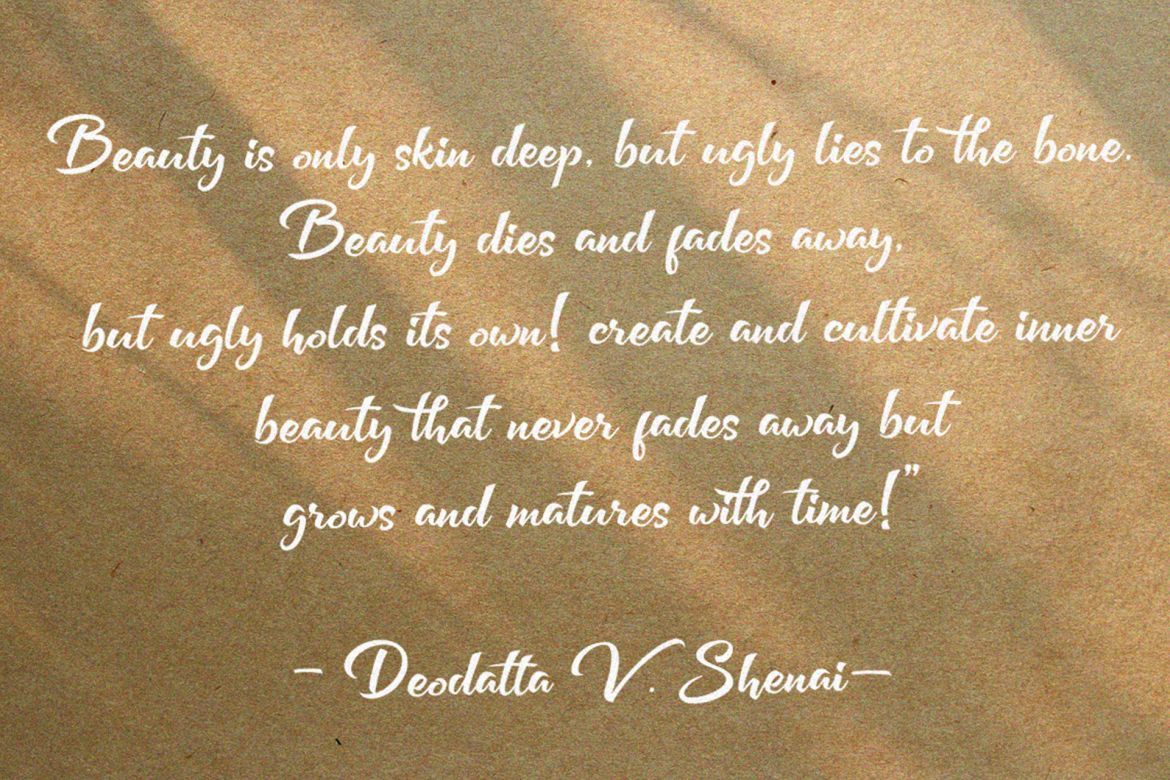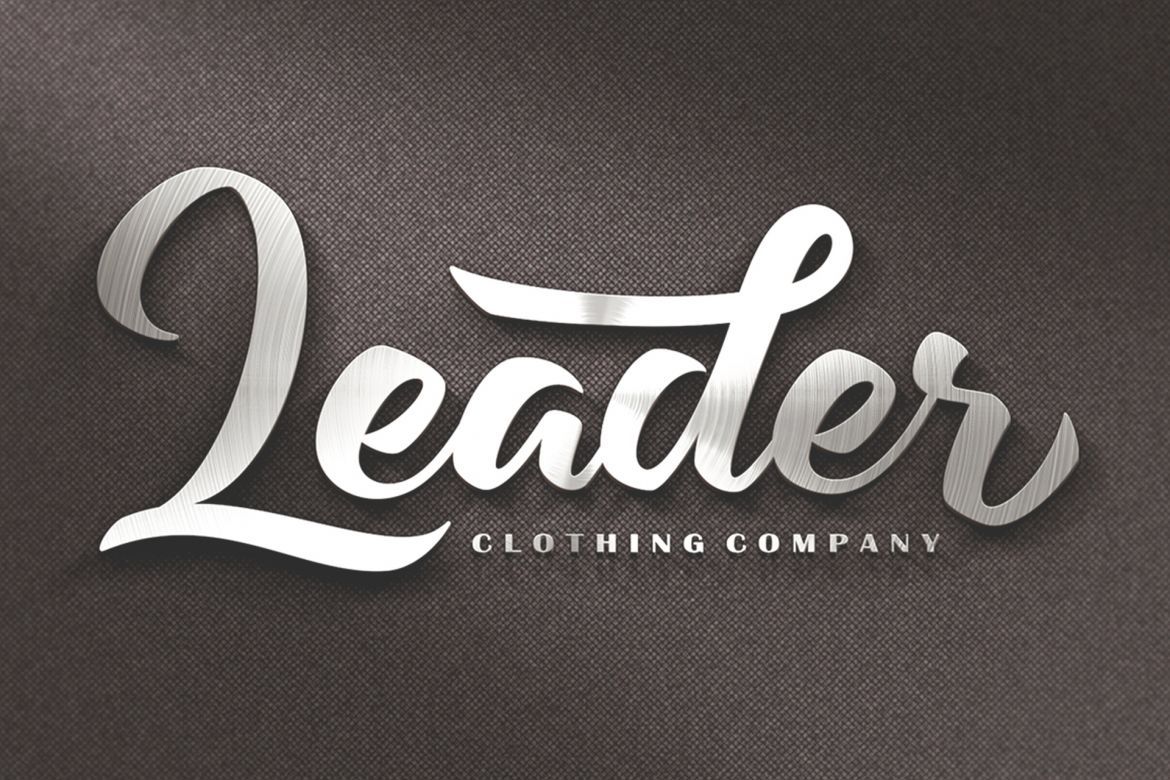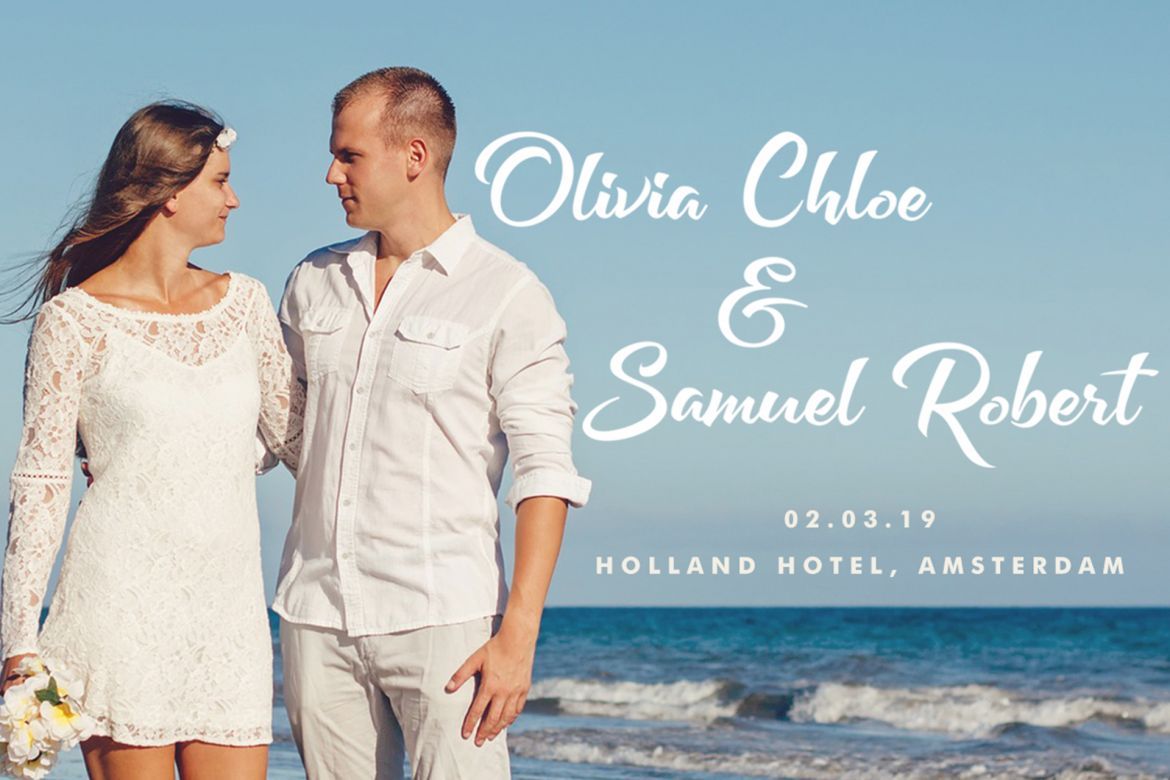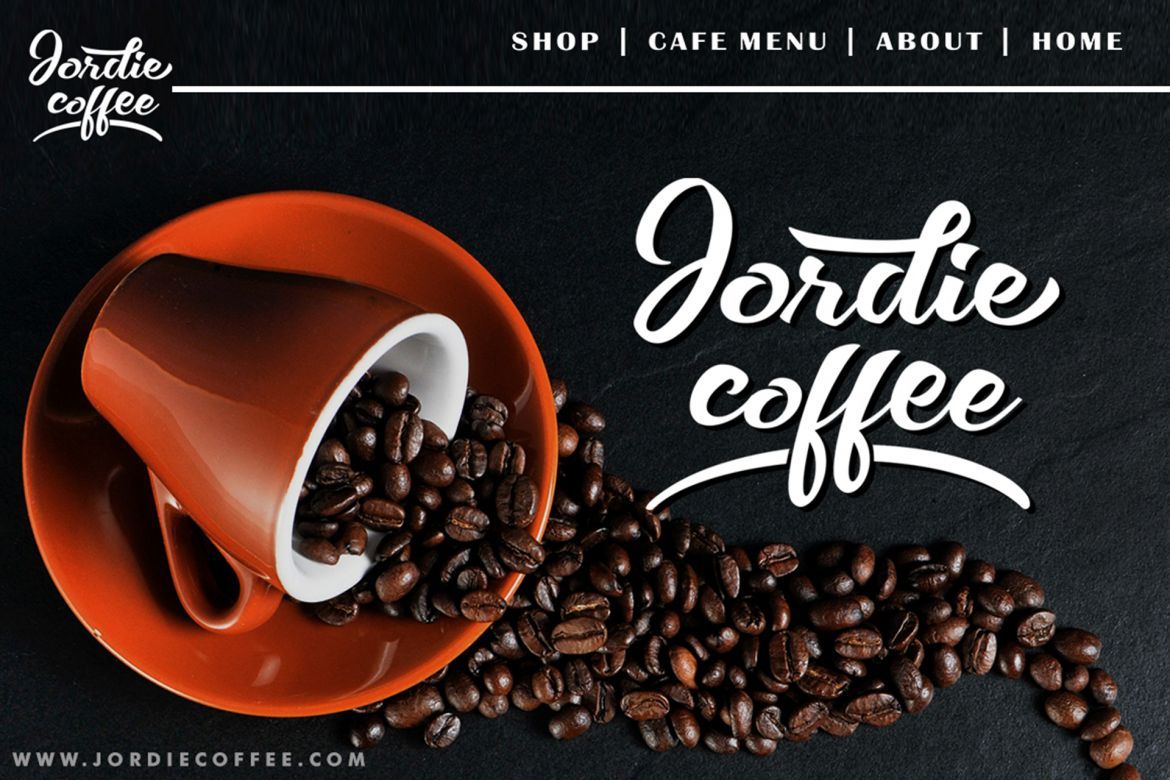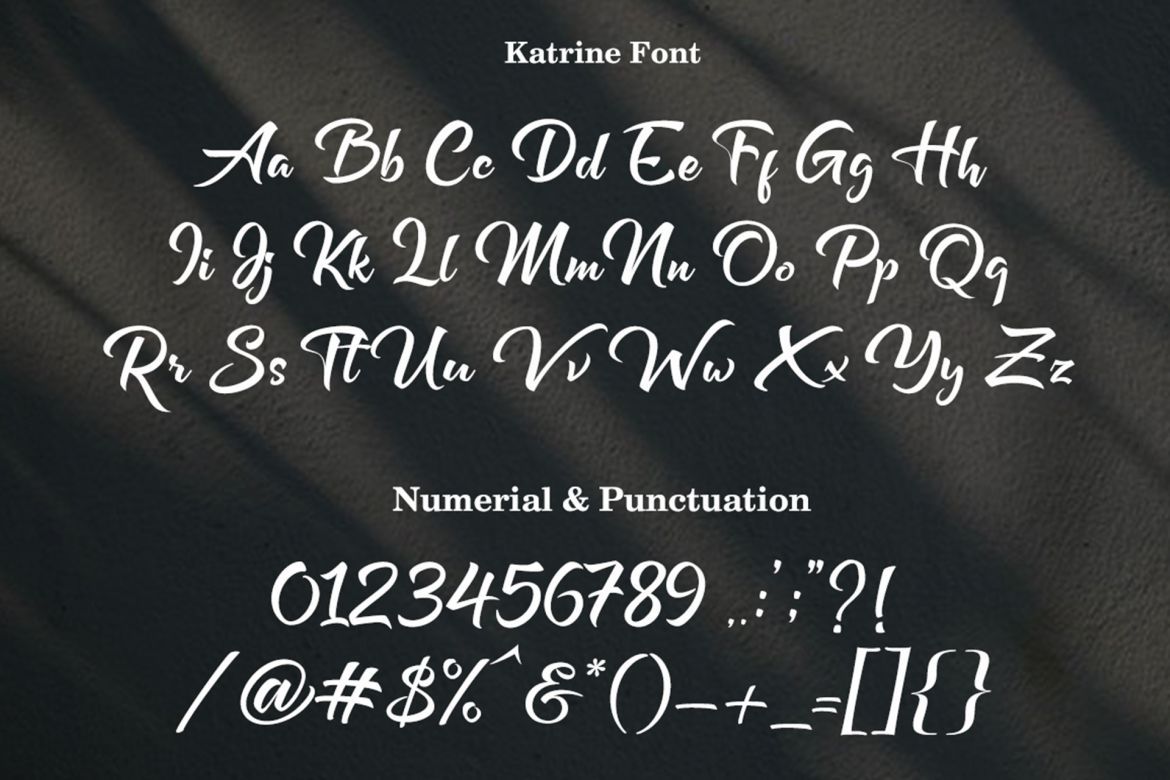
Katrine Bold Script Font
Katrine is a bold and unique handwritten font with a lovely twist. Fall in love with its timeless elegance.
• each font has stylish handwritten style